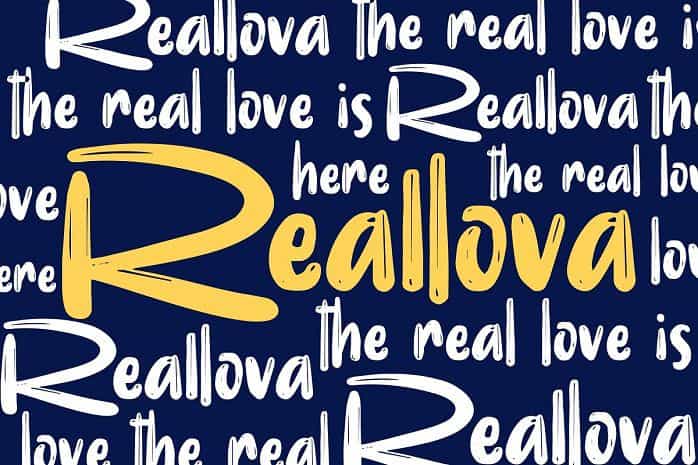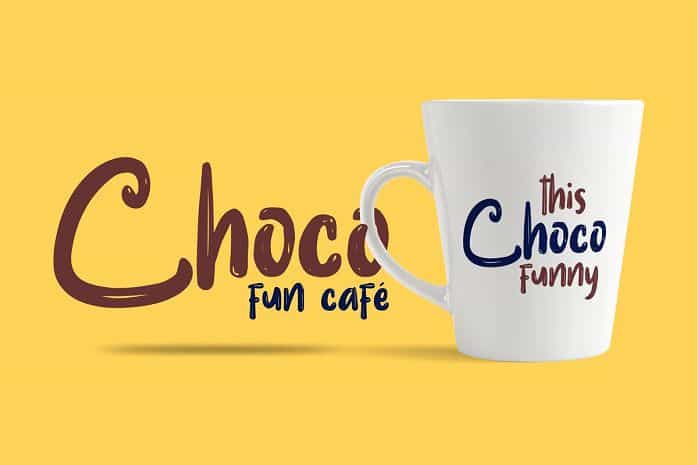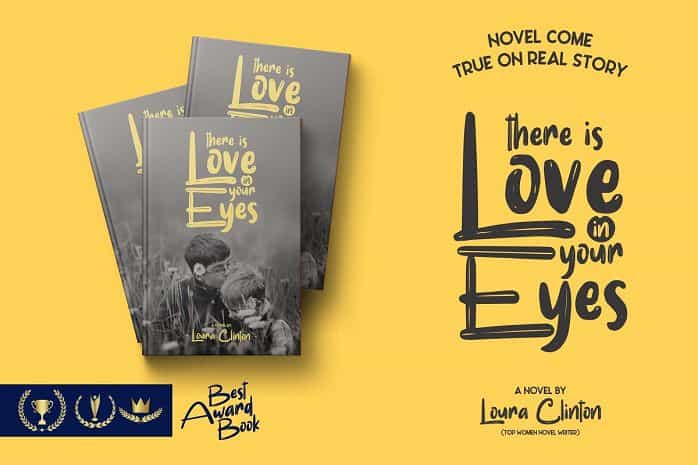
Introducing Reallova Brush Font. Reallova is a touch font display which will bring you the bold, fun and a little brush effect that will make your design look natural. This font is the right one for you to use as a book title, typography design, poster, quote, shirt design etc. It can also be used as a logo type and in many other things like templates.